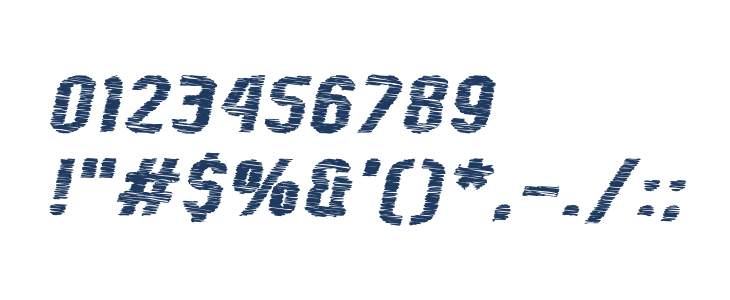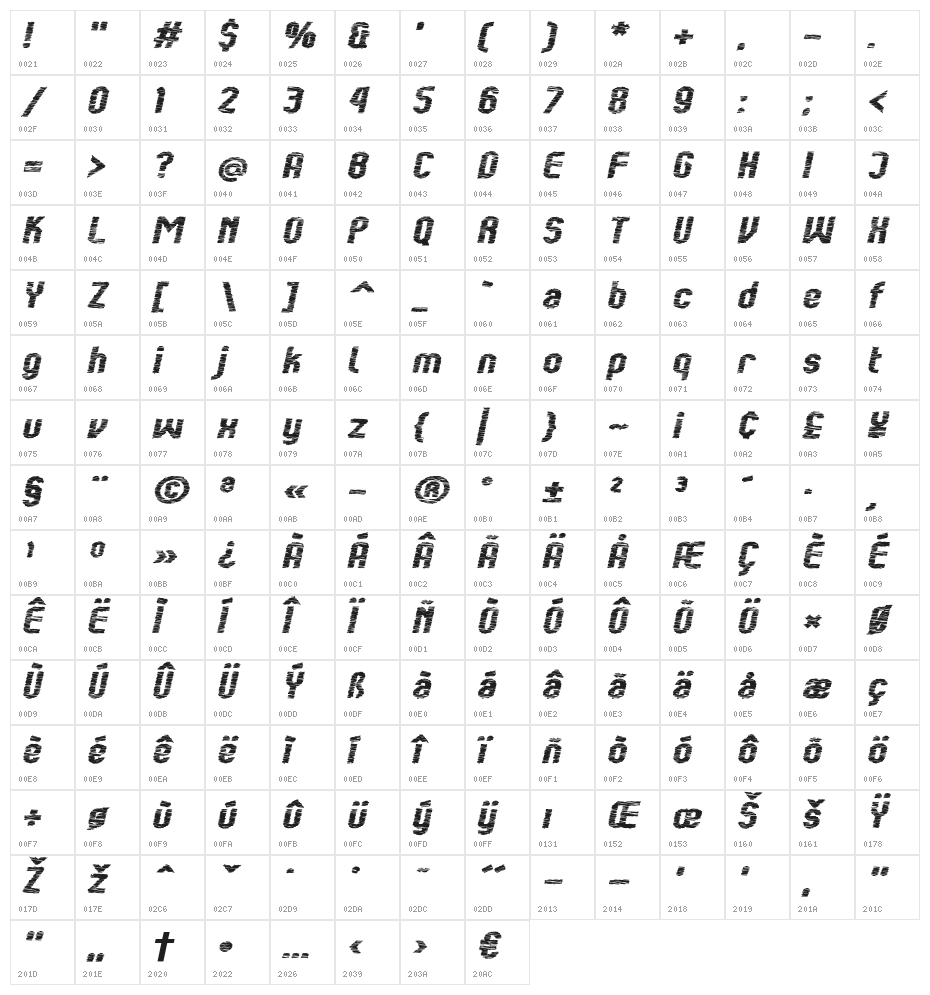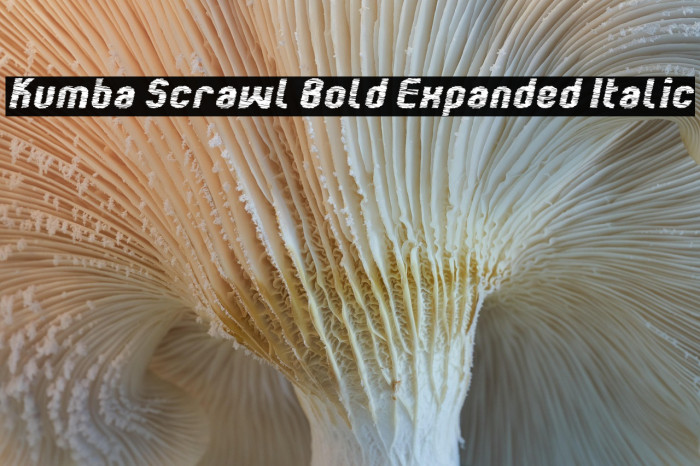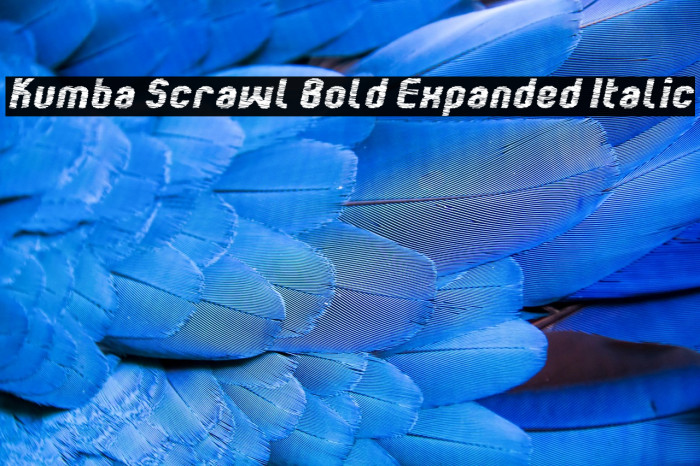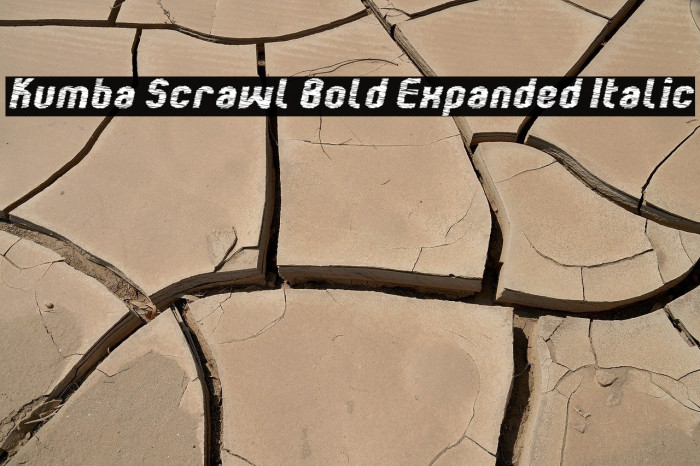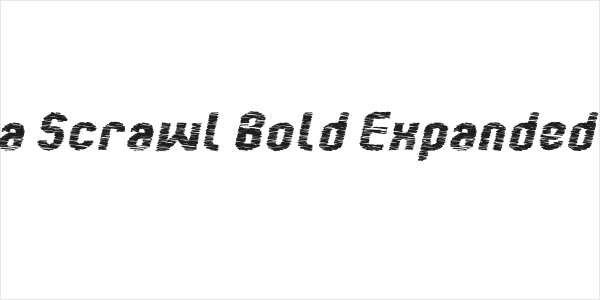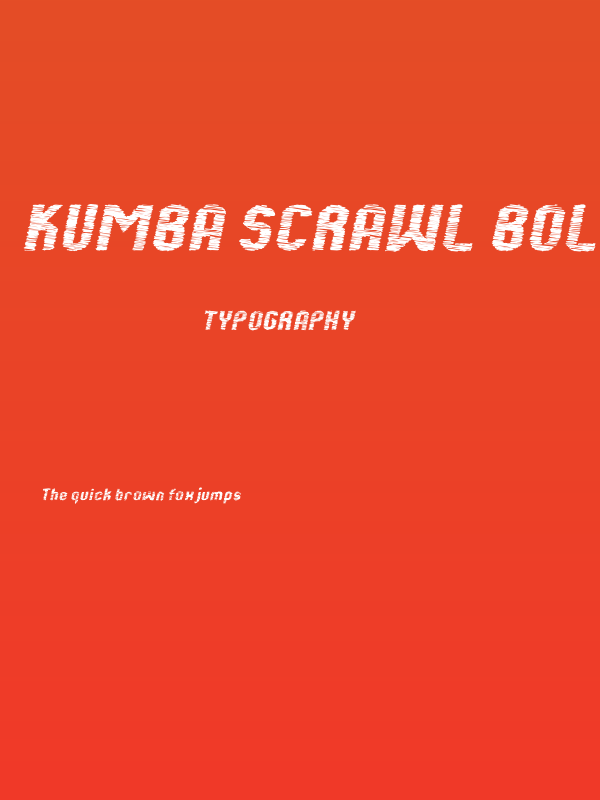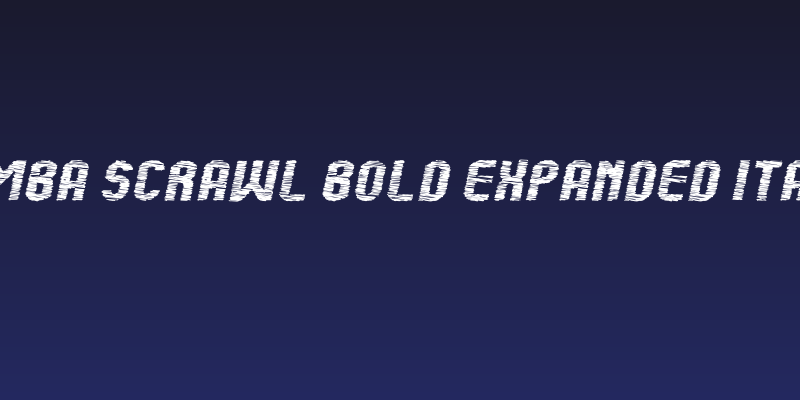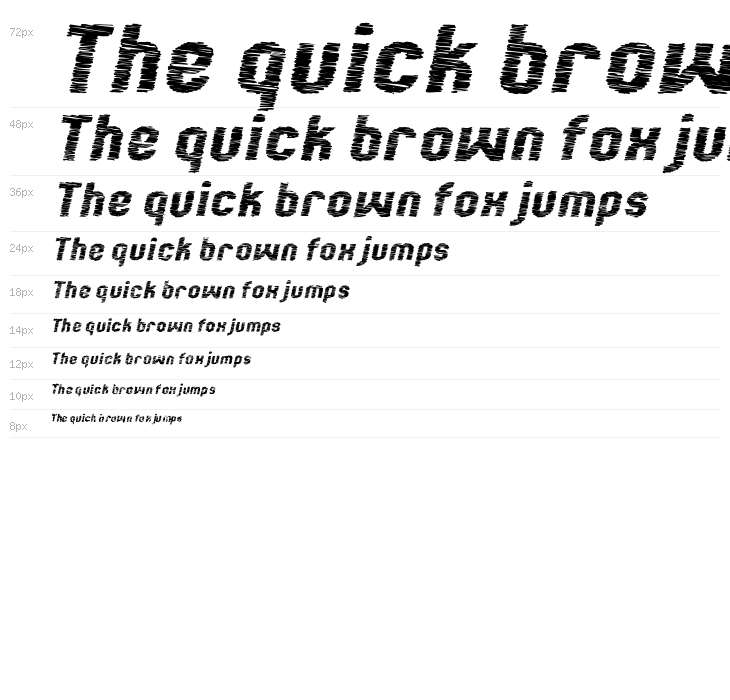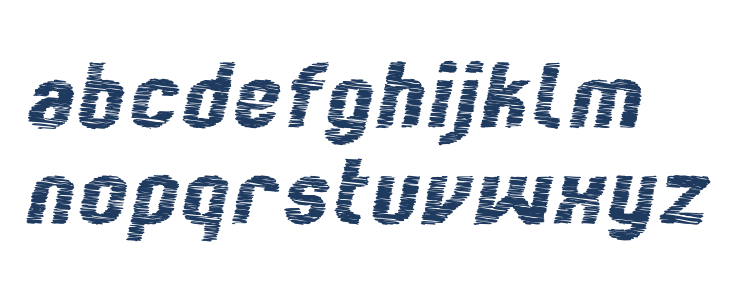
Kumba Scrawl Bold Expanded Italic Font
Kumba Scrawl Bold Expanded Italic Description
This font features a bold and dynamic style with a hand-drawn, scrawled appearance. The characters are expanded and italicized, giving them a sense of movement and energy. The strokes are uneven, with a textured, sketch-like quality that adds a unique, artistic flair. This font is highly decorative, making it stand out with its distinctive, rough edges and playful design. The expanded width and bold weight contribute to its strong visual impact, while the italic slant adds a touch of elegance and fluidity. It's perfect for projects that require a creative and unconventional look.
| Proposed Projects | Ideal for posters, album covers, creative branding, and any project needing a bold, artistic touch. |